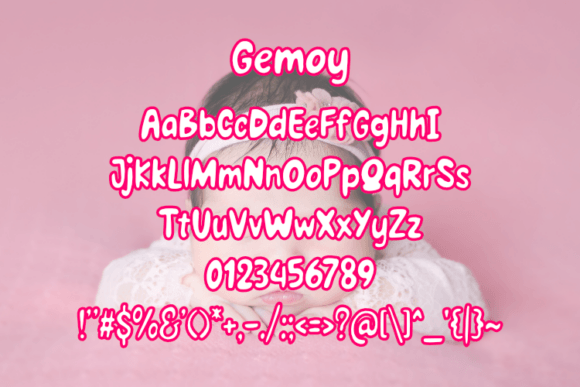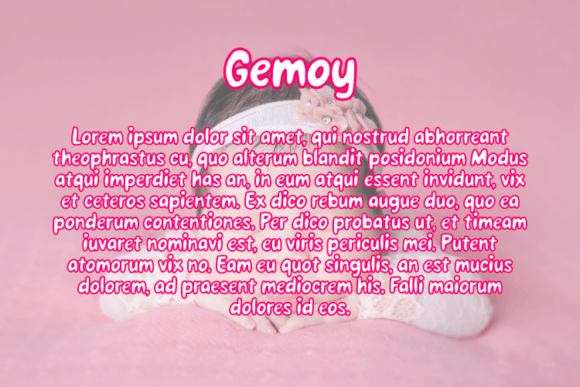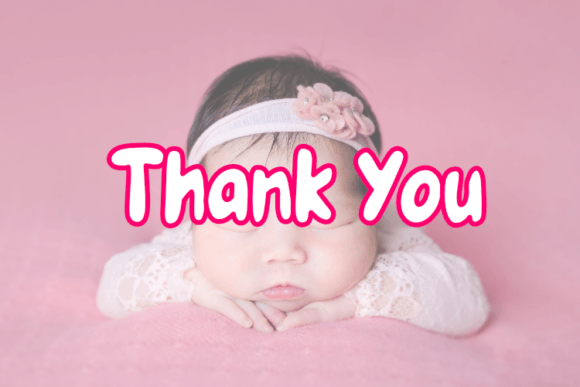
Introducing Gemoy Font: Elevate Your Designs with Versatility and Style
In the world of design, the right font can make all the difference. It’s the perfect blend of style, versatility, and functionality that can elevate your creations from ordinary to extraordinary. This is where the Gemoy Font comes into play, a strikingly versatile font designed to breathe life into your designs. Whether you’re working on fashion designs, trendy tees, high-quality merchandise, or any other design project, Gemoy is the ideal embellishment that can seamlessly integrate across all platforms and software.
The Perfect Fit for Fashion and Design
Gemoy Font is perfectly crafted for designers and crafters who are looking to add a touch of elegance and modernity to their work. Its unique style and flexibility make it an excellent choice for a wide range of applications, from fashion designs and trendy apparel to high-quality merchandise and beyond. The font’s versatility ensures that it can adapt to various design needs, making it a valuable asset for any designer looking to expand their creative horizons.
Unlocking Design Excellence
Gemoy Font is more than just a font; it’s a tool that unlocks a world of creative possibilities. With Gemoy, you can:
- Elevate Your Fashion Designs: Add a touch of sophistication and style to your fashion designs, making them stand out in a crowded market.
- Enhance Your Merchandise: Create high-quality merchandise that resonates with your audience, from trendy tees to unique accessories.
- Explore New Creative Horizons: With Gemoy’s versatility and style, you’re encouraged to explore new design possibilities and push the boundaries of your creativity.
Why Choose Gemoy Font?
Choosing Gemoy Font for your design projects comes with numerous benefits. Here are a few reasons why Gemoy stands out:
- Versatility: Gemoy’s design ensures it can be used across a wide range of projects, from fashion and merchandise to digital content and more.
- Style: Its unique and modern style adds a touch of elegance to any design, making your creations more appealing and engaging.
- Support for Design Excellence: Gemoy is crafted to support designers in achieving their best work, providing a reliable and high-quality font for their projects.
The Gemoy Font is a game-changer for designers and crafters looking to elevate their designs with style, versatility, and functionality. Its perfect blend of modernity and elegance, coupled with its exceptional compatibility and flexibility, makes it an indispensable tool in any designer’s toolkit. Whether you’re looking to enhance your fashion designs, create standout merchandise, or simply explore new creative possibilities, Gemoy Font is the perfect choice. With Gemoy, you’re not just choosing a font; you’re unlocking a world of design excellence.